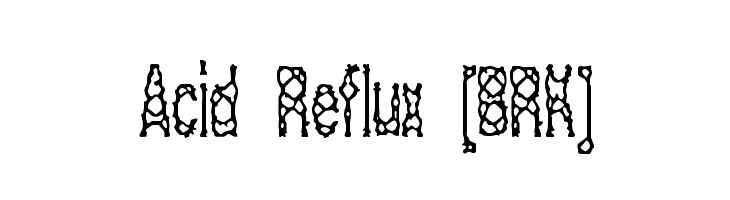
A modern, elegant script font with flowing cursive letterforms.
A sleek, modern italic font with clean lines and a professional appearance.
A playful, handwritten font with an informal and whimsical style.
A playful, informal handwritten font with smooth, fluid strokes.
A playful, casual handwritten font with smooth, flowing lines and a friendly vibe.
A playful, bold font with rounded, bubbly characters and a hand-drawn feel.
A playful, star-filled font perfect for vibrant and creative projects.
A playful, brush-stroke inspired font with a whimsical and artistic style.
An elegant, high-contrast font with tall, narrow letters and a modern style.
A bold, angular, and italicized font with a futuristic and geometric style.
A bold, expressive script font with smooth curves and dynamic swashes.
A bold, geometric font with a modern, industrial style.
A bold, jagged, and geometric font with an edgy, hand-drawn appearance.
A monospaced, italic font with a modern and clean design.
A playful and energetic handwritten font with a casual, informal style.
A bold, rounded font with a playful, weathered appearance.
A sleek, italicized, and condensed font with a modern, dynamic appearance.
A playful, bone-themed decorative font perfect for spooky designs.
A modern decorative font with playful curves and loops.
A bold, thorny font with sharp accents for an edgy, gothic look.
A bold, dynamic script font with high contrast and fluid connections.
A bold, italicized font with a modern and dynamic style.
A bold, dripping font with a gothic and theatrical style.
A classic serif font with elegant and refined letterforms, suitable for formal contexts.
A bold, geometric typeface with a modern and impactful style.
A dynamic, waved decorative font with a unique flowing texture.
A bold, distressed font with a grunge and rebellious aesthetic.
A playful, bold, and slightly italicized font with rounded, bubbly characters.
设计师偏爱 AEZ giraffes, Anjellic Dafont, Freeroad Italic, Seafaring shareware and Pea Hunny,因为其造型干净、适用范围广—— 从品牌识别到落地页、海报都能胜任。